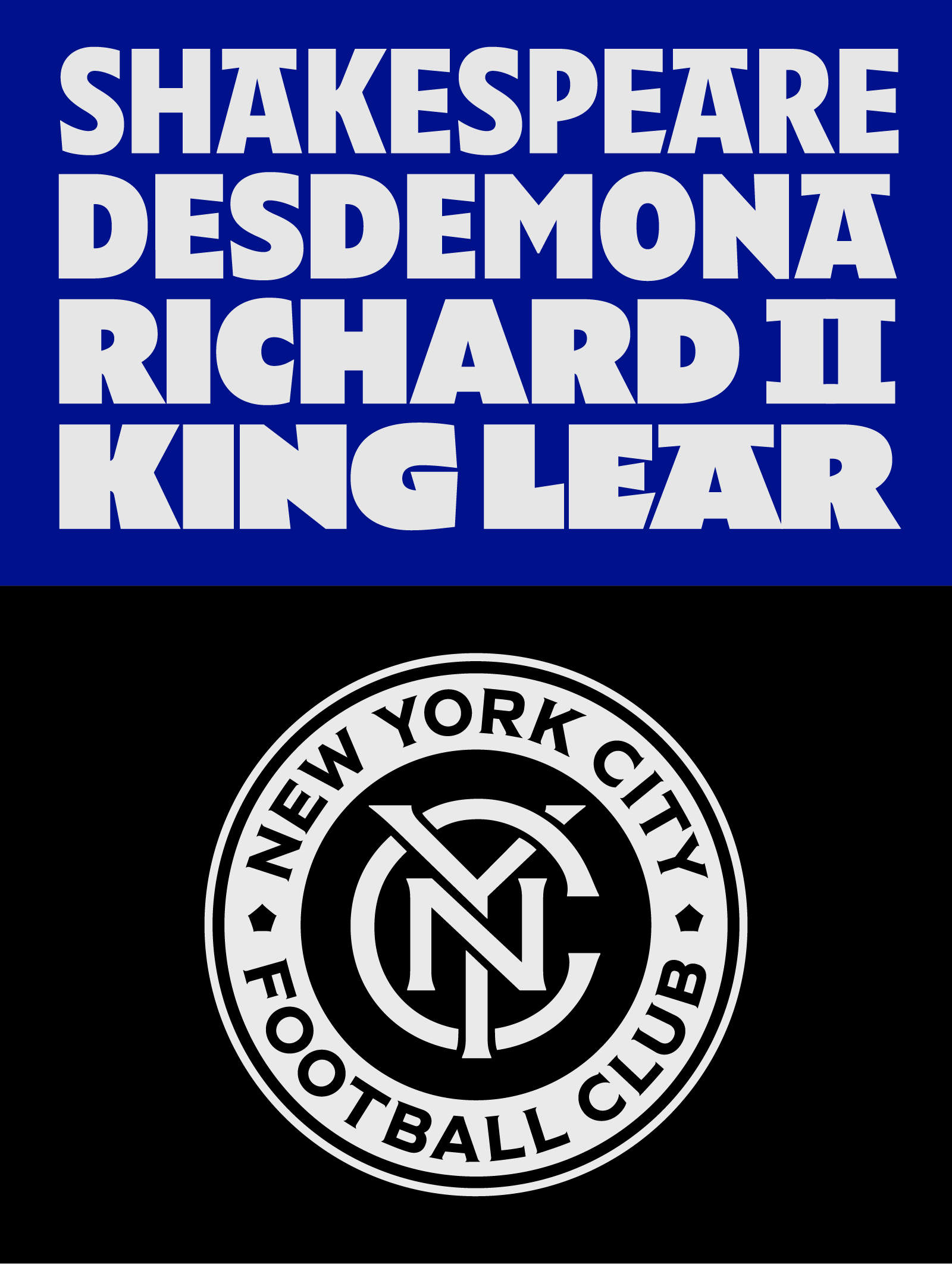
Tobias Frere-Jones recounts the research and design process behind the brand new typography that he and Nina Stössinger created for the New York City Football Club. How to connect a relatively new sports team (and in a sport that’s less popular in the United States) deeply to the identity and pride of this iconic city? Tobias and Nina studied the visual history of the city’s transit system, and let its loudness and grit inform their fresh and bold design to create a bond with citizens and fans.